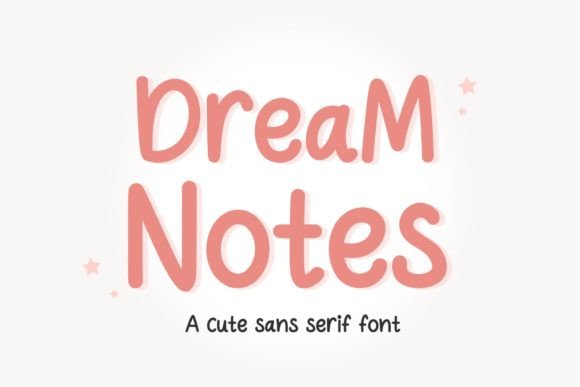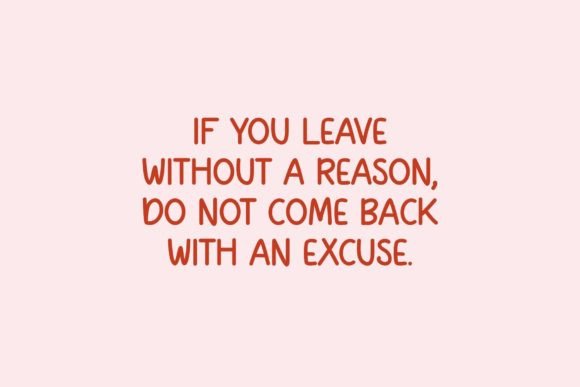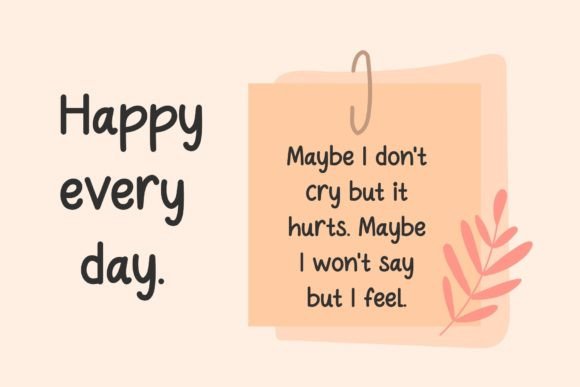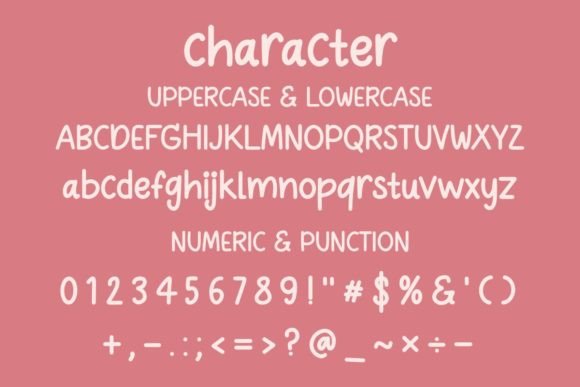
Dream Notes Font: A Cute & Playful Sans Serif for Cricut Crafts
About the Dream Notes Font
Welcome to the world of Dream Notes Font, a typeface that will inspire your next great project. Experience the magic of Dream Notes font. Let your words soar with creativity and imagination. Transform your designs into works of art with the elegance of Dream Notes font. Elevate your projects to new heights and inspire others with every stroke. Cute font
Dream Notes is ideally suited for headlines, short-form text in branding materials, and packaging design where its playful character can shine. Its decorative nature makes it less suitable for body text or UI elements requiring high readability. Avoid using it for long paragraphs or extensive website copy.
The font’s core personality is cheerful and whimsical, yet maintains a level of sophistication. It would be a great fit for children’s products, feminine brands, or projects with a lighthearted and creative tone.
For optimal pairing, consider a clean sans-serif like Open Sans or Lato for body copy, balancing Dream Notes’ playful curves. Alternatively, a classic serif such as Garamond or Merriweather can add a touch of timeless elegance, complementing the font’s decorative elements while maintaining a clear visual hierarchy.